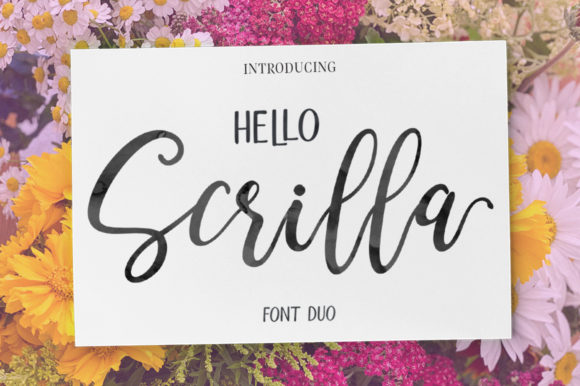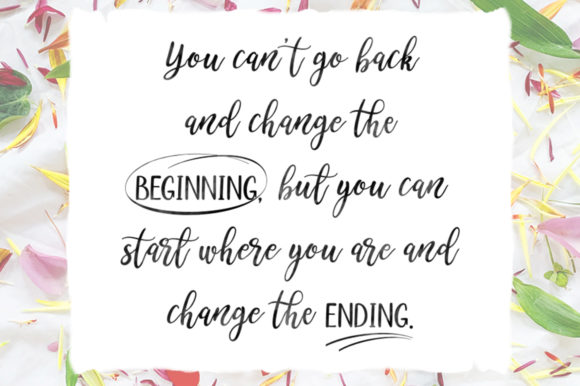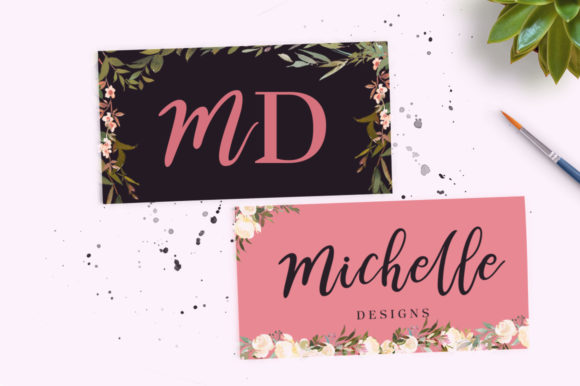
Hello Scrilla Script Font Font
Hello Scrilla Script is an elegant and modern duo font (handwritten and sans serif). It is delicate, neat, and incredibly fitting to a wide range of designs. So add it confidently to your fonts’ repertoire and it will instantly become a top choice.